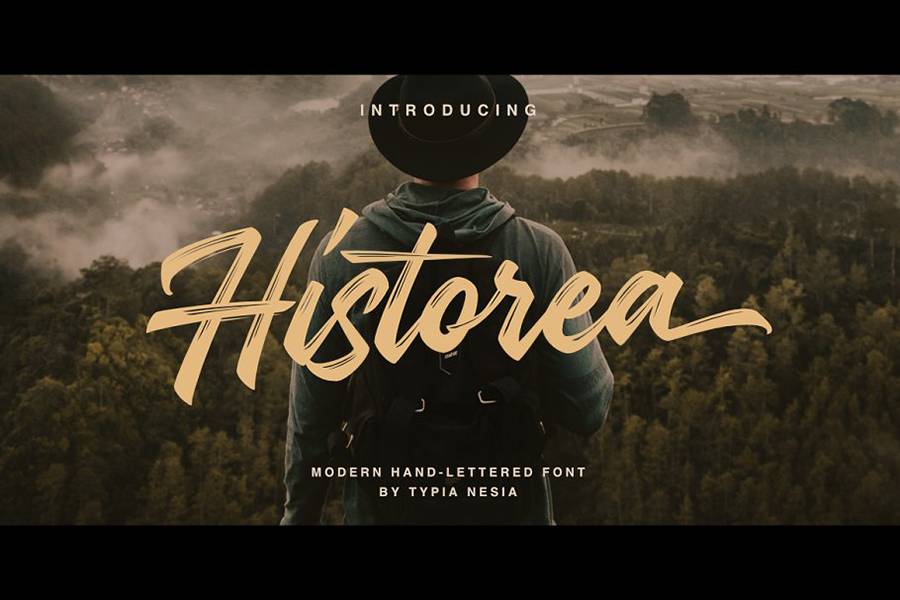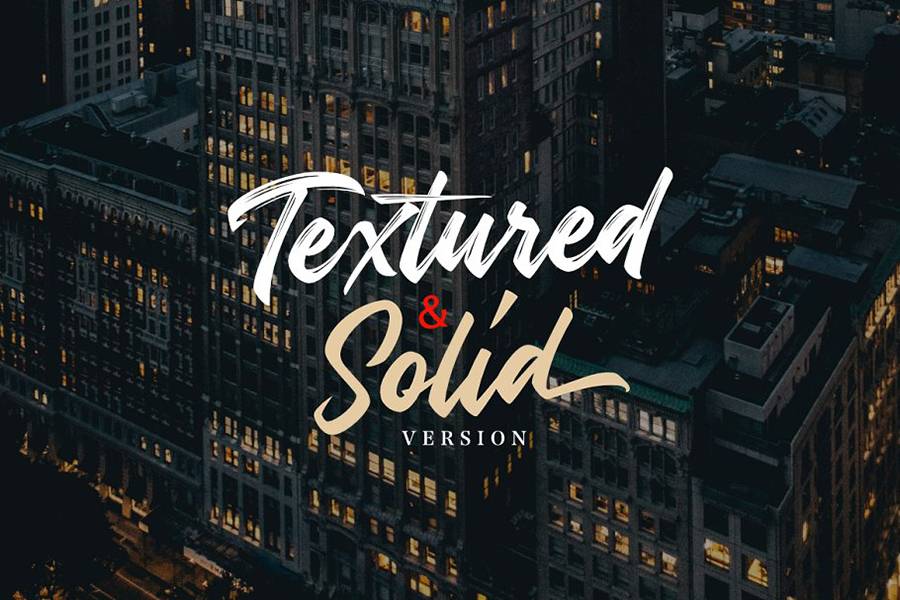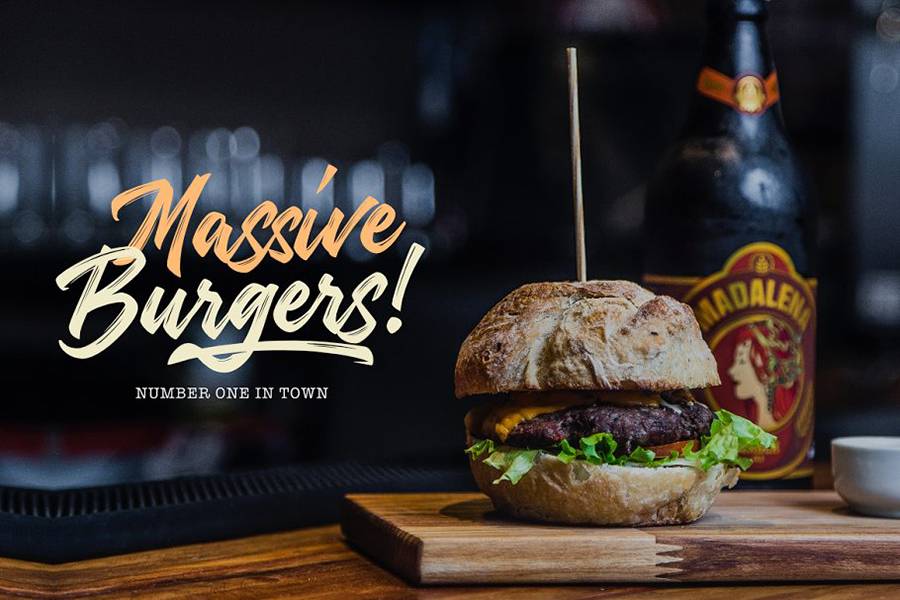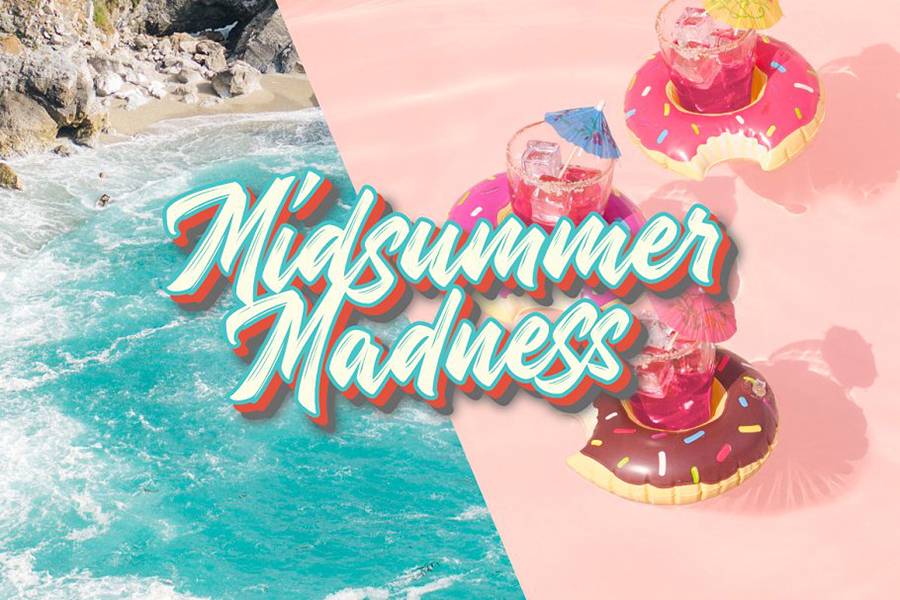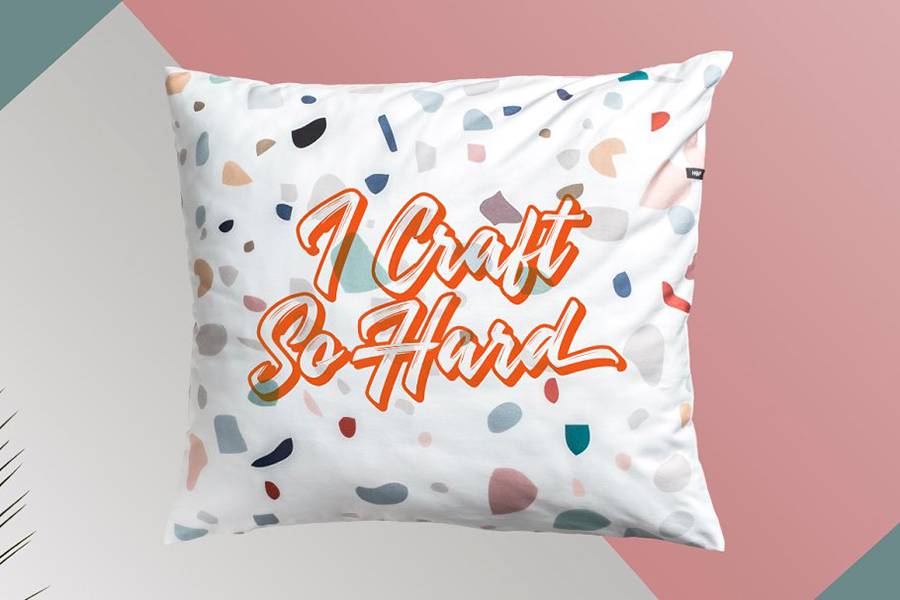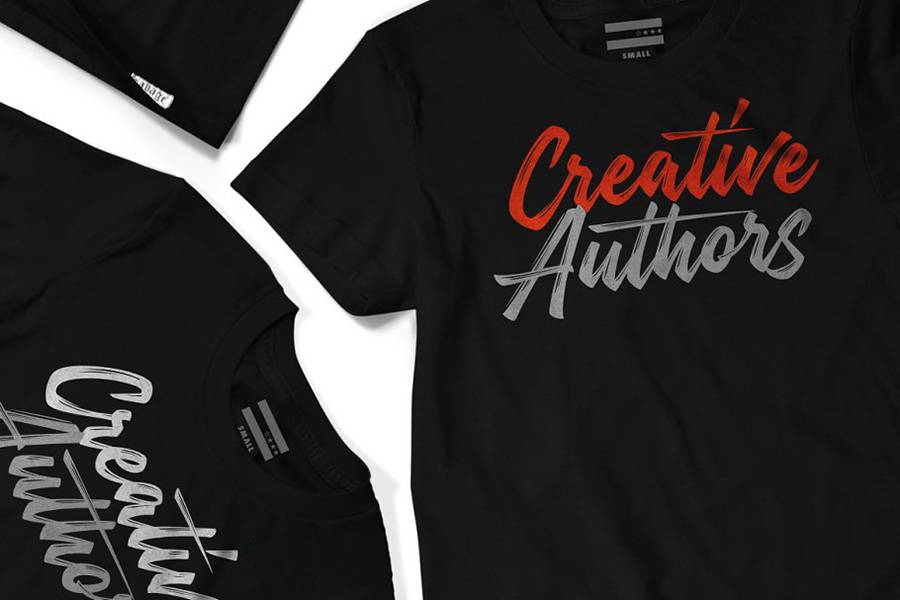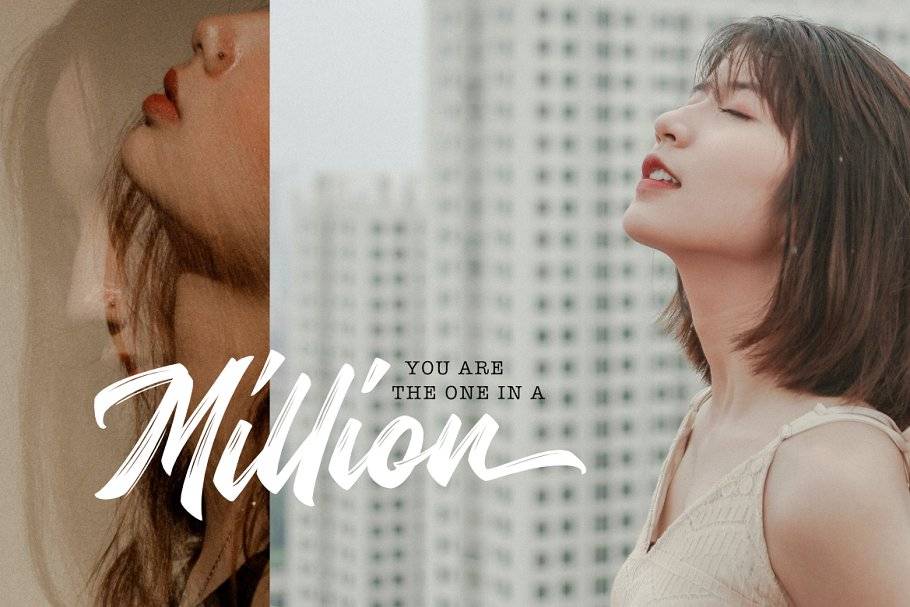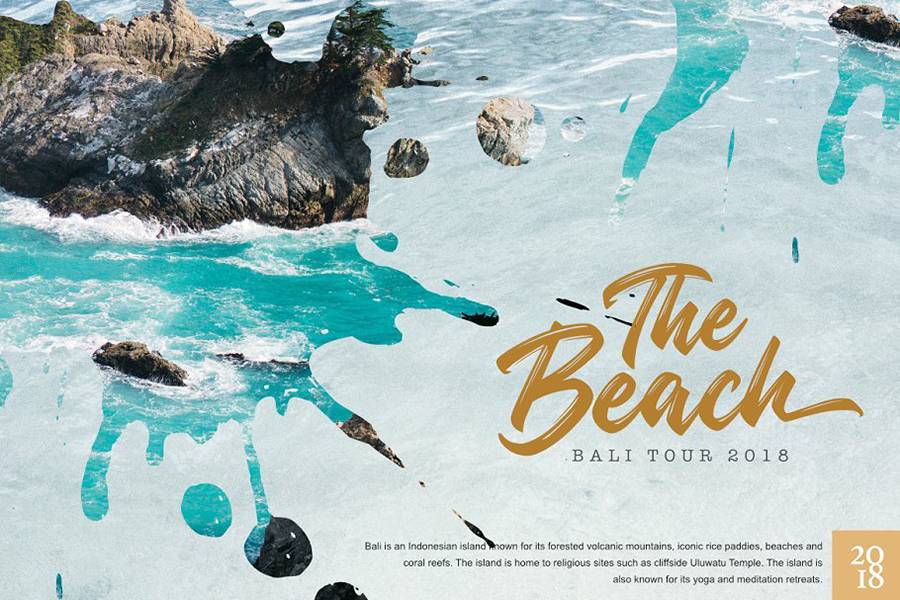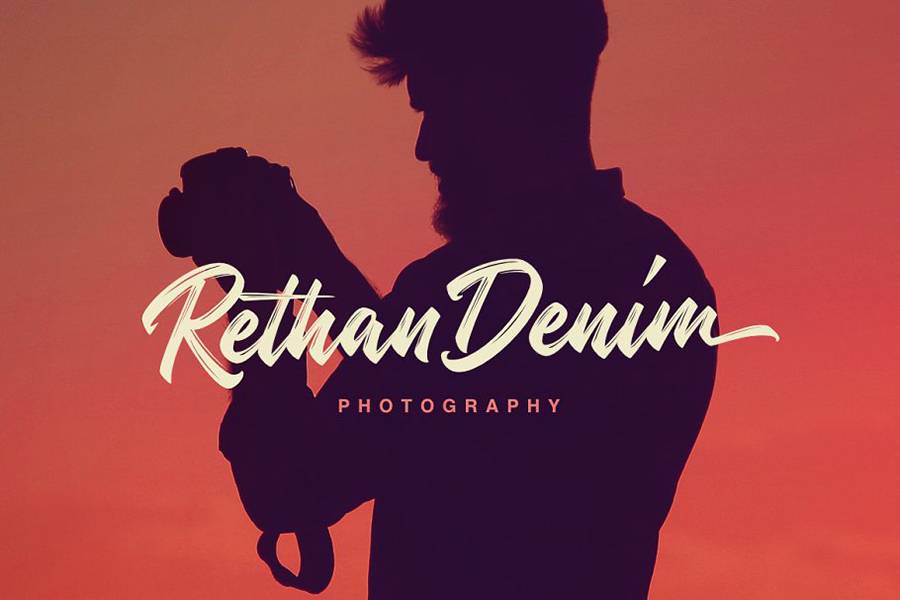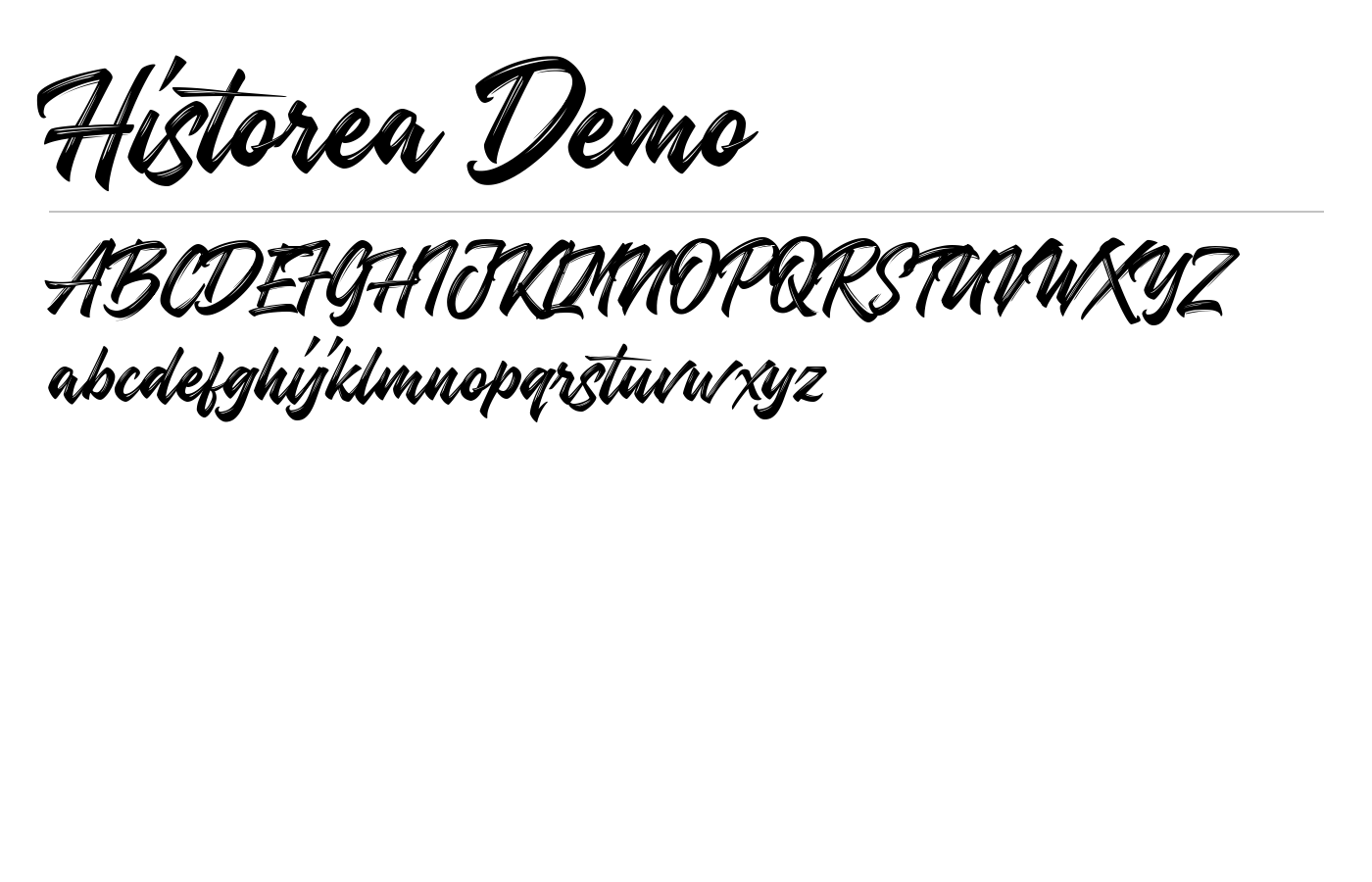
Historea Handlettering Script is a dynamic and expressive script font that captures the fluidity and charm of authentic hand lettering. Its bold, slightly condensed strokes with smooth curves and distinctive brush-like texture create a lively and artistic personality, making it ideal for creative branding, invitations, and headlines that need a personal, handcrafted touch. This font works especially well in designs seeking a modern yet approachable and elegant flair.
Historea Handlettering Script
About Historea Handlettering Script
| Font family | Historea Handlettering Script |
| Release date | 2017-01-24 |
| Designer | Arief Setyo Wahydui |